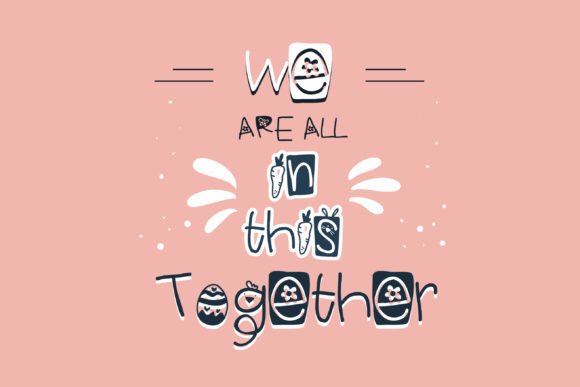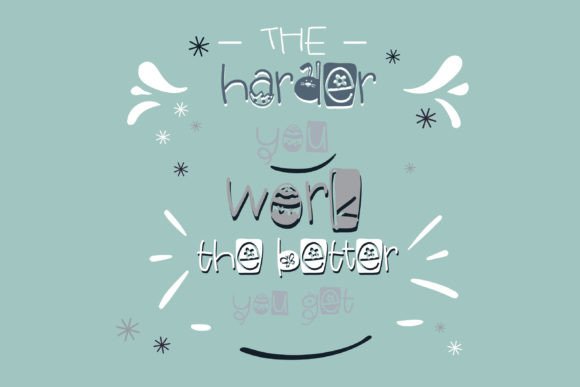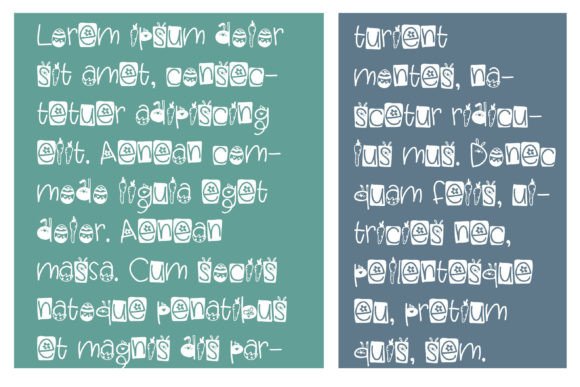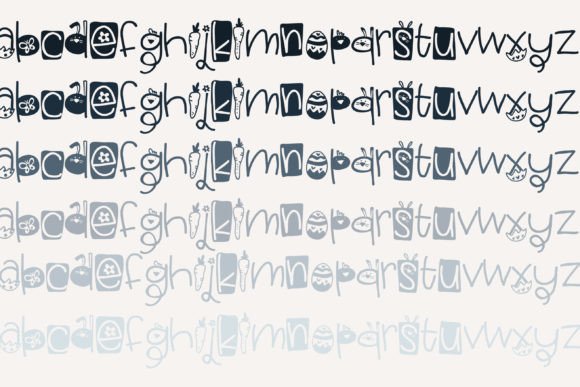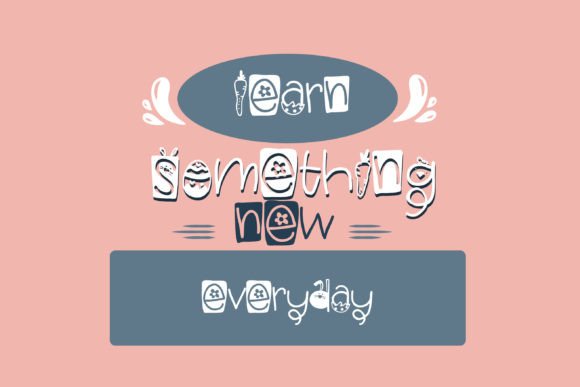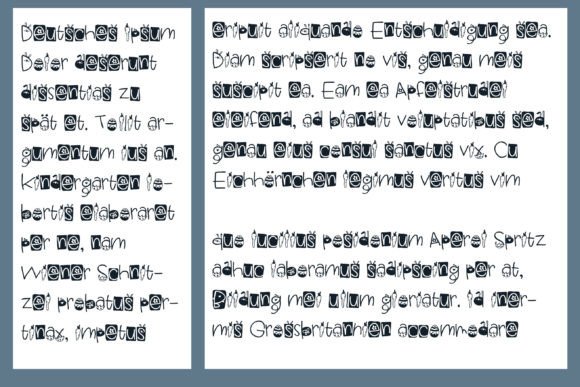
Easter Time Story Font: A Whimsical and Charming Choice for Your Easter Designs
Are you looking for a unique and playful font to make your Easter designs stand out? Look no further than the Easter Time Story Font! This one-of-a-kind font is specifically designed to add a touch of whimsy and charm to your Easter-themed projects. With its delightful combination of crafted letters and playful accents, it’s the perfect choice for designers and crafters who want to create something truly special.
A Delightful Combination of Crafted Letters and Playful Accents
The Easter Time Story Font features a beautiful combination of crafted letters with playful accents, giving it a truly unique and eye-catching look. The letters are carefully designed to flow together gracefully, creating a cohesive and distinctive look that’s sure to stand out. Whether you’re designing Easter cards, invitations, or decorations, this font is sure to add a touch of magic to your project.
Perfect for Easter-Themed Designs
The Easter Time Story Font is specifically designed with Easter-themed designs in mind. Its playful and whimsical style makes it perfect for creating festive and fun designs that capture the spirit of the Easter season. Whether you’re designing for personal or commercial use, this font is sure to help you create something truly special.
Key Features of the Easter Time Story Font
- Unique and quirky design: The Easter Time Story Font features a one-of-a-kind design that’s sure to stand out.
- Playful accents: The font includes playful accents that add a touch of whimsy and charm to your designs.
- Crafted letters: The letters are carefully crafted to flow together gracefully, creating a cohesive and distinctive look.
- Perfect for Easter-themed designs: The font is specifically designed with Easter-themed designs in mind, making it perfect for creating festive and fun designs.
How to Use the Easter Time Story Font
The Easter Time Story Font is easy to use and can be incorporated into a variety of design projects. Here are a few ideas to get you started:
- Easter cards and invitations: Use the Easter Time Story Font to create festive and fun Easter cards and invitations.
- Easter decorations: Use the font to create Easter-themed decorations, such as banners, garlands, and signs.
- Easter crafts: Use the font to create Easter-themed crafts, such as Easter egg decorations and Easter basket labels.
Why Choose the Easter Time Story Font?
There are many reasons why you should choose the Easter Time Story Font for your Easter designs. Here are a few:
- Unique and eye-catching: The font features a unique and eye-catching design that’s sure to stand out.
- Playful and whimsical: The font has a playful and whimsical style that’s perfect for Easter-themed designs.
- Easy to use: The font is easy to use and can be incorporated into a variety of design projects.
The Easter Time Story Font is a one-of-a-kind and quirky option, ideal for designs celebrating the Easter season. With its delightful combination of crafted letters and playful accents, it’s the perfect choice for designers and crafters who want to create something truly special. Whether you’re designing Easter cards, invitations, or decorations, this font is sure to add a touch of magic to your project. So why wait? Download the Easter Time Story Font today and start creating your own unique and eye-catching Easter designs!